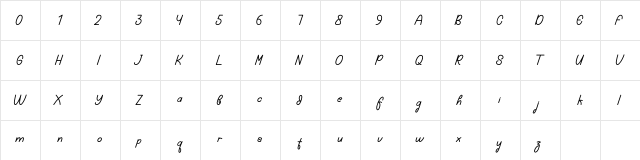
Natadon Demo Regular
| Designer | Gais Zaelani |
Design Context for Natadon Demo Typeface
Natadon Demo takes a measured approach to typography — its balanced proportions and neutral character make it a reliable workhorse for both digital and print work.